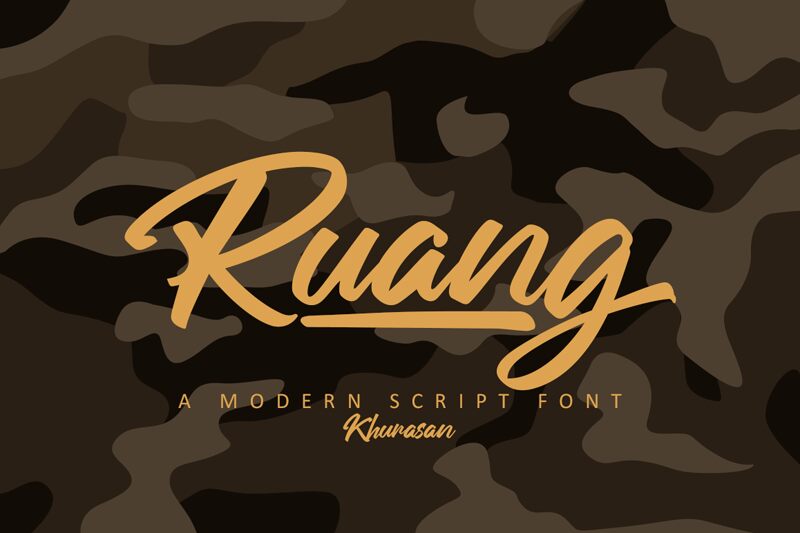
Ruang
Ruang, an exquisite modern handwritten font by Khurasan, brings a touch of elegance to your projects. With its semi-light weight and marker-like strokes, this font adds a unique charm to any design. Ideal for fashion blogs, lifestyle magazines, or wedding invitations, Ruang captivates readers with its graceful curves and stylish flair. Whether you're creating branding materials or social media graphics, let Ruang's artistic vibes elevate your content to new heights. Embrace the beauty of hand-drawn elements and make a lasting impression with this versatile typeface.